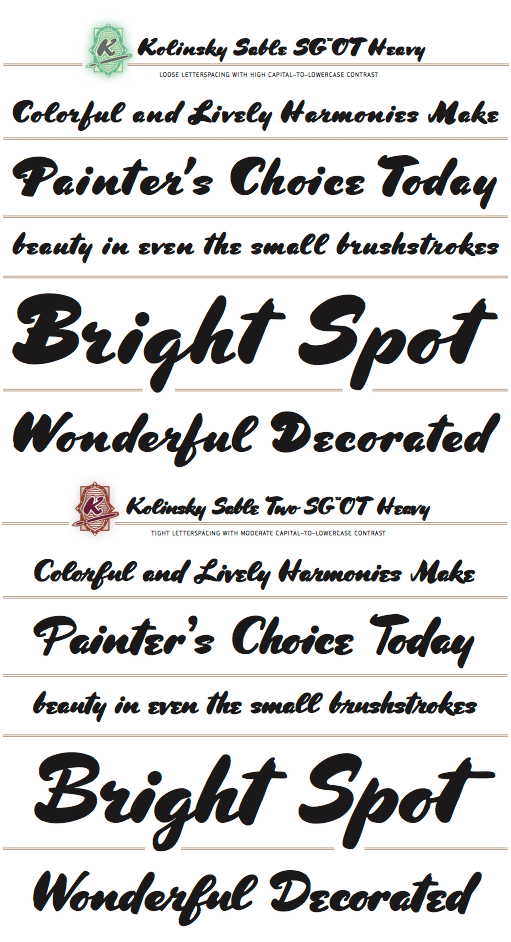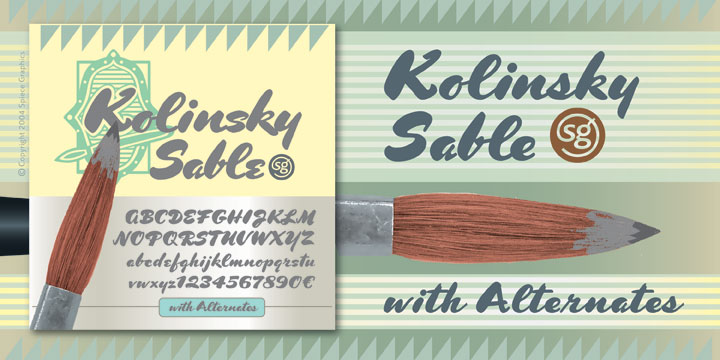
Kolinsky Sable SG™ Heavy w/ Alts (Spiece Graphics)
Jim Spiece enjoys resurrecting old typefaces. And finding a complete set of characters can often be a challenging task. It takes him down into the musty basements of public libraries and out into the world of flea markets and hole-in-the-wall bookstores. After careful scanning and hand-outlining, he must occasionally dig deeper for a missing punctuation mark or double f-ligature. Jim chuckles, 'These are all minor inconveniences when you consider you've brought these faces back from obscurity and found them new homes. Besides, it's fun. In one sense, my own designs are a lot easier because they never had a previous life!' You can check out Jim's revival of the Bernhard Gothic SG Family offered by FontHaus or his popular ITC Blair Family.View other fonts from Spiece Graphics
Here's what happens when you use a fully-loaded Asian mink Kolinsky brush to imitate an old script letter style of the World War II era.Originally published in 1944, Charles P. Bluemlein’s enchanting design has the same bounce, warmth, and charm found in many old magazines and movie titles of that period. Two digital versions are provided in the set. Kolinsky Sable Heavy with Alternates retains Bluemlein’s original heavy, contrasting capital letters. However, some modifications, such as less severe slanting and looser letterspacing, are also present. You will find this version very helpful when setting in small sizes.
If you prefer the tighter, brush-lettered look of the times, try Kolinsky Sable Two Heavy. Caps are somewhat lighter making for generally better color overall. This version is ideal for headlines and logos. Alternate capital and lowercase characters plus an alternate set of small numbers have been provided. Fine-tuning is possible since many lowercase characters are interchangeable.